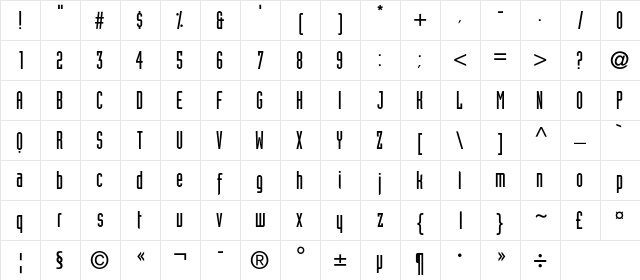
BlitsOneC Regular
Design Context for BlitsOneC Typeface
BlitsOneC is a composed and adaptable typeface that performs quietly and consistently across a wide range of design contexts.